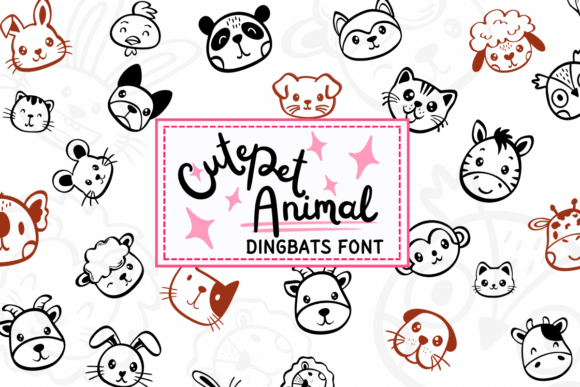
Cute Pet Animal Font: Add a Touch of Whimsy to Your Creative Projects
Are you looking for a unique and playful font to add a touch of whimsy to your creative projects? Look no further than the Cute Pet Animal Font, a delightful dingbats font featuring a sketch style theme that’s sure to bring a smile to your face. In this article, we’ll explore the features and benefits of this charming font, and show you how it can enhance your wedding invitations, DIY projects, crafts, decorations, logos, and many other creative ideas.
What is Cute Pet Animal Font?
Cute Pet Animal Font is a dingbats font that features a collection of adorable pet animals, including cats, dogs, birds, and more. The font is designed in a sketch style, giving it a playful and hand-drawn feel that’s perfect for adding a personal touch to your creative projects. With its unique and quirky design, this font is sure to stand out from the crowd and add a touch of personality to your work.
Features of Cute Pet Animal Font
So, what makes Cute Pet Animal Font so special? Here are just a few of its key features:
- Sketch style design: The font features a charming sketch style design that’s perfect for adding a touch of whimsy to your creative projects.
- Dingbats font: As a dingbats font, Cute Pet Animal Font features a collection of graphical symbols and icons, rather than traditional letters and numbers.
- Adorable pet animals: The font features a range of adorable pet animals, including cats, dogs, birds, and more.
- Playful and fun: The font has a playful and fun design that’s perfect for adding a touch of personality to your creative projects.
Uses for Cute Pet Animal Font
So, how can you use Cute Pet Animal Font in your creative projects? Here are just a few ideas to get you started:
- Wedding invitations: Add a touch of whimsy to your wedding invitations with this charming font, featuring adorable pet animals and a playful design.
- DIY projects: Use Cute Pet Animal Font to add a personal touch to your DIY projects, such as scrapbooking, card making, and more.
- Crafts: The font is perfect for adding a touch of personality to your crafts, such as knitting, sewing, and more.
- Decorations: Use the font to create custom decorations, such as garlands, banners, and more.
- Logos: Add a touch of whimsy to your logos with this charming font, featuring adorable pet animals and a playful design.
Benefits of Using Cute Pet Animal Font
So, why should you choose Cute Pet Animal Font for your creative projects? Here are just a few benefits of using this charming font:
- Unique and eye-catching: The font features a unique and eye-catching design that’s sure to stand out from the crowd.
- Playful and fun: The font has a playful and fun design that’s perfect for adding a touch of personality to your creative projects.
- Versatile: The font can be used in a wide range of creative projects, from wedding invitations to DIY projects and more.
Tips and Tricks for Using Cute Pet Animal Font
Here are a few tips and tricks for getting the most out of Cute Pet Animal Font:
- Experiment with different sizes: Experiment with different font sizes to find the perfect size for your creative project.
- Combine with other fonts: Combine Cute Pet Animal Font with other fonts to create a unique and eye-catching design.
- Use in combination with images: Use the font in combination with images to create a visually appealing design.
- Have fun: Most importantly, have fun with the font! Experiment with different designs and ideas to find the perfect look for your creative project.
Cute Pet Animal Font is a charming dingbats font featuring a sketch style theme that’s perfect for adding a touch of whimsy to your creative projects. With its unique and eye-catching design, playful and fun style, and ease of use, this font is sure to become a favorite in your design arsenal. Whether you’re creating wedding invitations, DIY projects, crafts, decorations, logos, or more, Cute Pet Animal Font is the perfect choice. So why wait? Download Cute Pet Animal Font today and start adding a touch of personality to your creative projects!